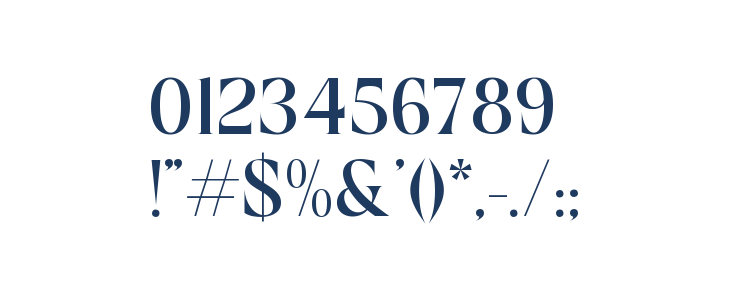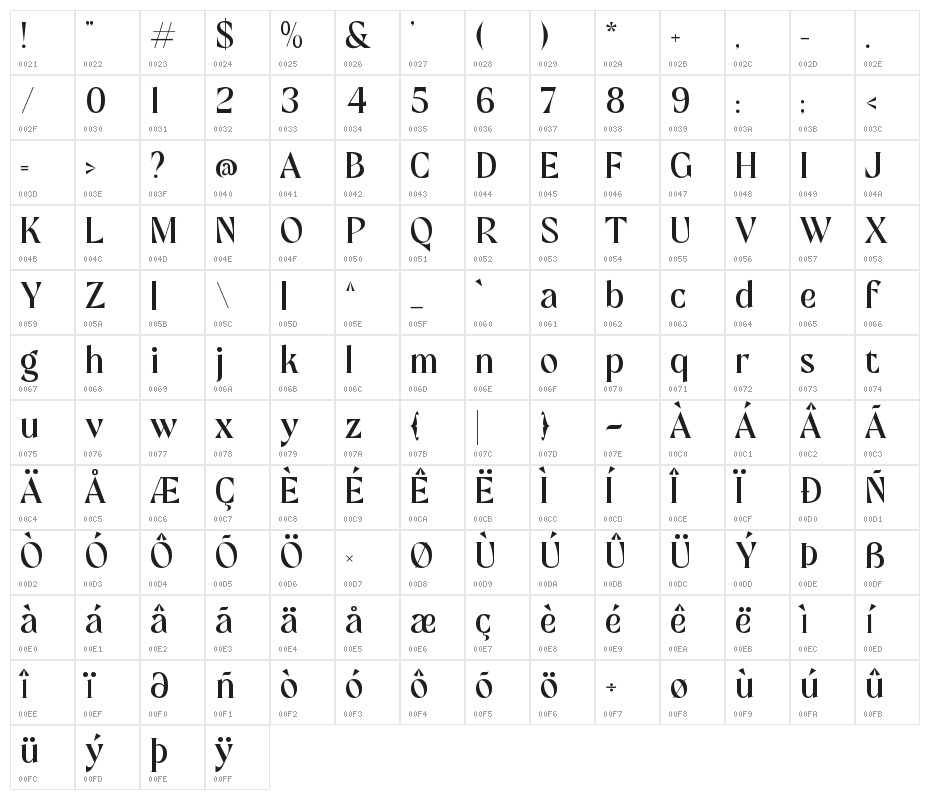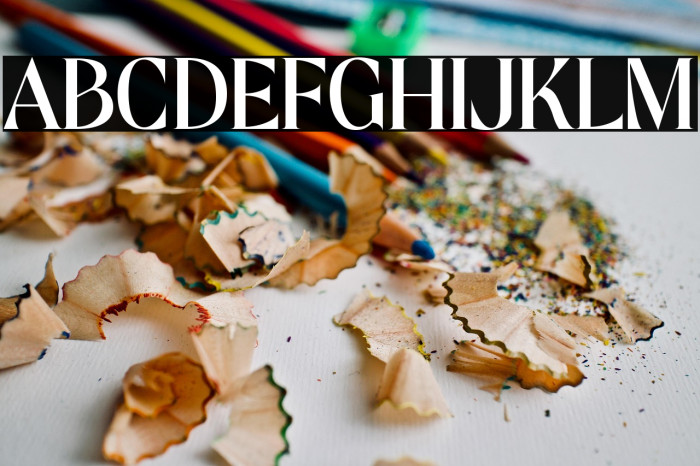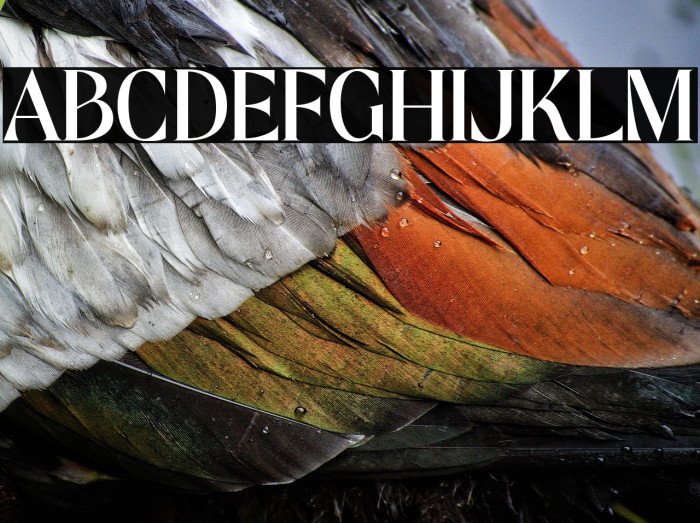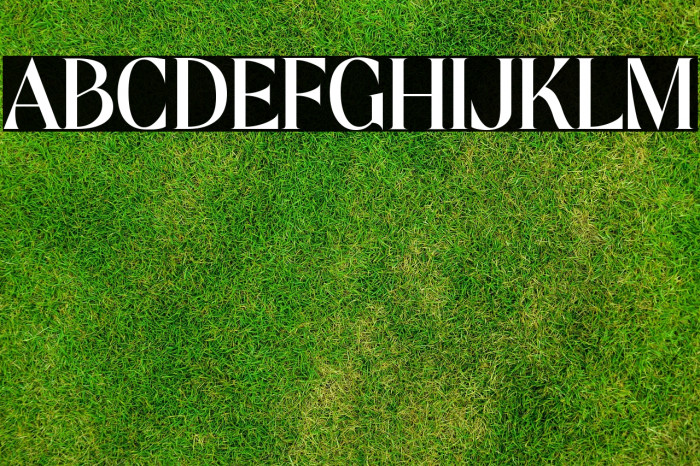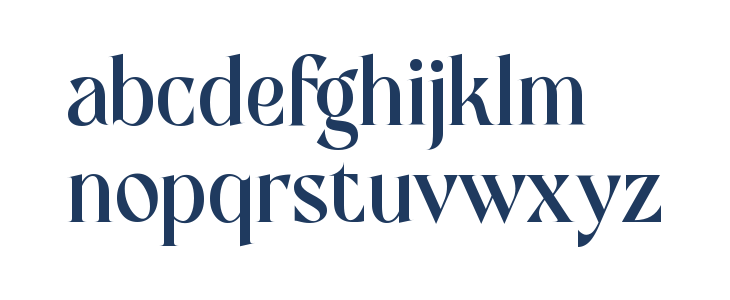
Mofista Font
Mofista Description
This font features a bold and elegant serif style with high contrast between thick and thin strokes, giving it a dramatic and sophisticated appearance. The uppercase letters are tall and commanding, while the lowercase letters maintain a balanced and harmonious flow. The numerals are equally bold, ensuring readability and impact. Special characters are designed with the same attention to detail, making them suitable for a variety of uses. The overall design is both classic and modern, making it versatile for different design needs.
Overall StyleClassic
Proposed ProjectsIdeal for luxury branding, editorial design, book covers, and high-end product packaging.